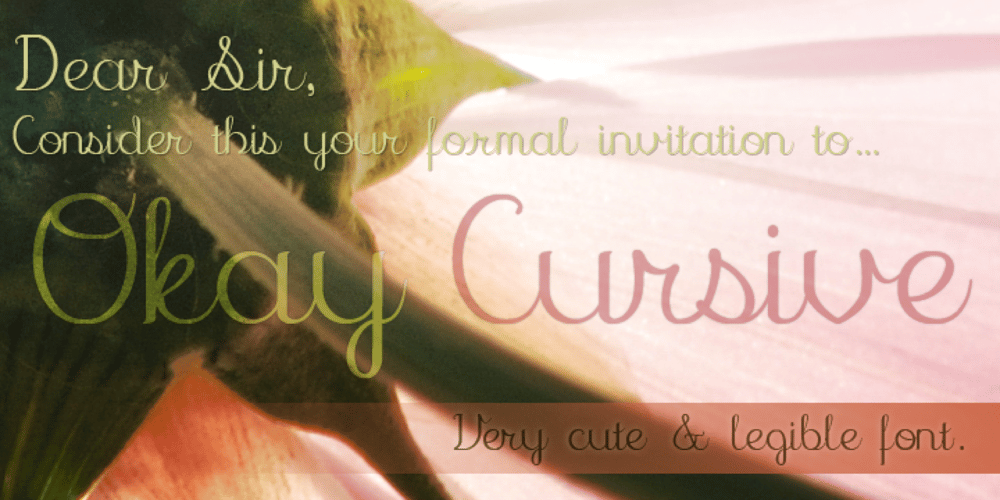
OkayCursive
OkayCursive font
OkayCursive Font Family was designed by Luke William Turvey and published by Okaycat. OkayCursive contains 2 styles and family package options. OkayCursive began over coffee, in a local flower shop, where my wife takes a floral arrangement class. I discovered a book there, with old photographs from Paris of flower shop displays. What caught my eye in the background of one of these photos, was the hand-painted lettering on a sign. Inspired, I quickly sketched some of the letters on a napkin and stuck it in my pocket. I began to sketch more over the next few days, looking to construct a full-out cursive font with this distinct French look. I wanted my design to be creative & free flowing, but I also wanted it to be at least somewhat proper. So, I consulted some schoolbooks for reference on the correct cursive forms. After more drawing, I began to create the final vector art. Gradually, these ideas — plus many hours of careful kerning and metrics — came together to form OkayCursive. Use OkayCursive any time you want fancy, legible, and luxurious text. Works great if you are designing a logo, or use it to create some beautiful titling. Use it for advertisement copy, or even for short to medium-length bodies of text — go ahead and have fun with it. OkayCursive is extended, containing the full West European diacritics & a full set of ligatures, making it suitable for multilingual environments & publications.